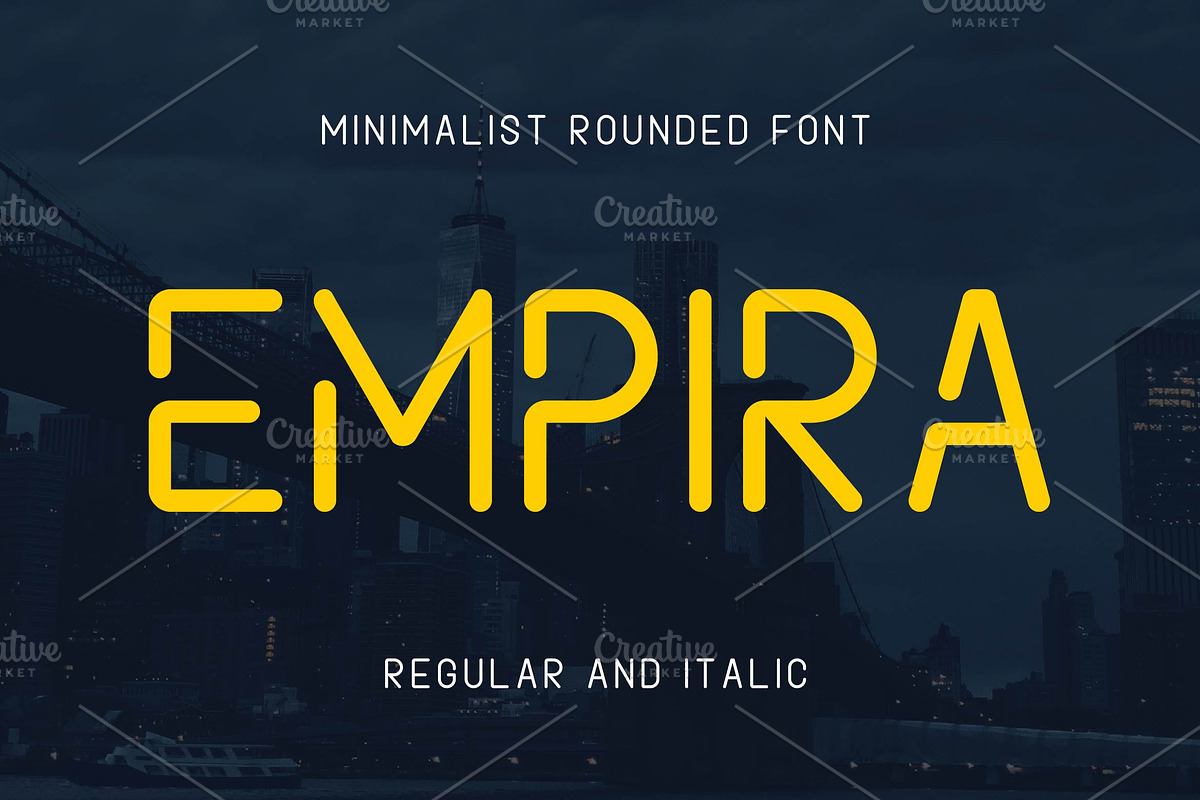
Empira | Rounded Sans Serif Font is perfect for modern tech branding, friendly app interfaces, approachable business communications, clean website typography, contemporary packaging design, progressive logo creation, user-friendly signage systems, accessible educational materials, warm corporate identities, innovative product labeling, engaging social media graphics, and welcoming design applications.
Empira | Rounded Sans Serif Font is exciting because it achieves the perfect balance between professional authority and human approachability through its expertly rounded letterforms that soften geometric precision without sacrificing contemporary sophistication or readability. This exceptional typeface features carefully engineered curves that create an atmosphere of warmth and accessibility while maintaining the clean functionality that modern brands demand. The font's empowering aesthetic speaks to audiences who value both professional competence and human connection in their brand interactions.
Empira | Rounded Sans Serif Font includes comprehensive font families: Regular Friendly Style, Bold Confident Weight, Light Approachable Touch, Medium Balanced Format, Italic Dynamic Slant, Condensed Efficient Width, Extended Generous Format, Ultra Light Version, Black Impact Style, and Special Rounded Symbols, providing complete solutions for modern design needs and contemporary brand communications that require both professionalism and human warmth.
This empowering typography solution transforms standard communications into engaging brand experiences through its perfect fusion of professional capability and human accessibility. Empira | Rounded Sans Serif Font Free Download enables designers and progressive brands to access premium rounded typography that instantly adds warmth, professionalism, and contemporary appeal to any creative project. The font's meticulously crafted rounded elements ensure approachable character while maintaining excellent functionality and distinctive modern presence.
Tech companies, progressive brands, and user-focused businesses trust Empira | Rounded Sans Serif Font for its ability to communicate competence, approachability, and modern innovation to audiences seeking both professional excellence and human connection in brand experiences. The typeface's balanced construction performs exceptionally well across various applications, from intimate user interfaces to large-scale corporate branding systems. Its extensive character support includes multilingual capabilities and rounded design elements that enhance contemporary brand presentations.
The design philosophy behind Empira | Rounded Sans Serif Font emphasizes the importance of human-centered design in our technological age, creating typography that empowers both brands and users through accessible professionalism. This empowerment-focused approach creates a font that feels genuinely progressive while maintaining timeless appeal across different modern contexts and user-friendly brand expressions.